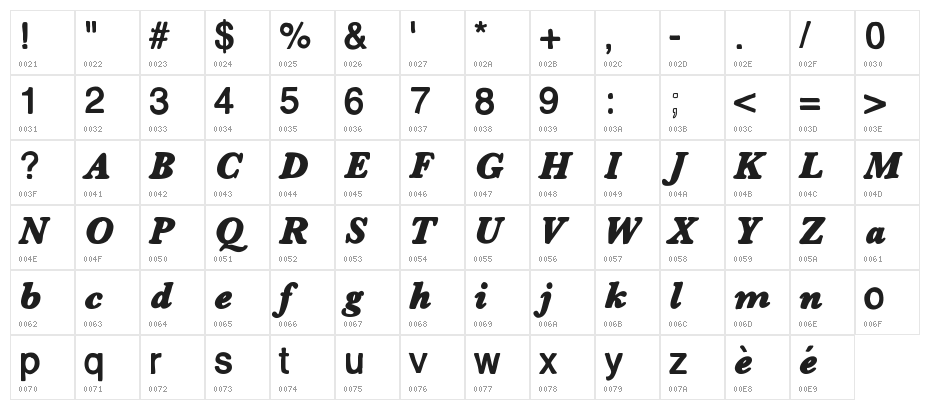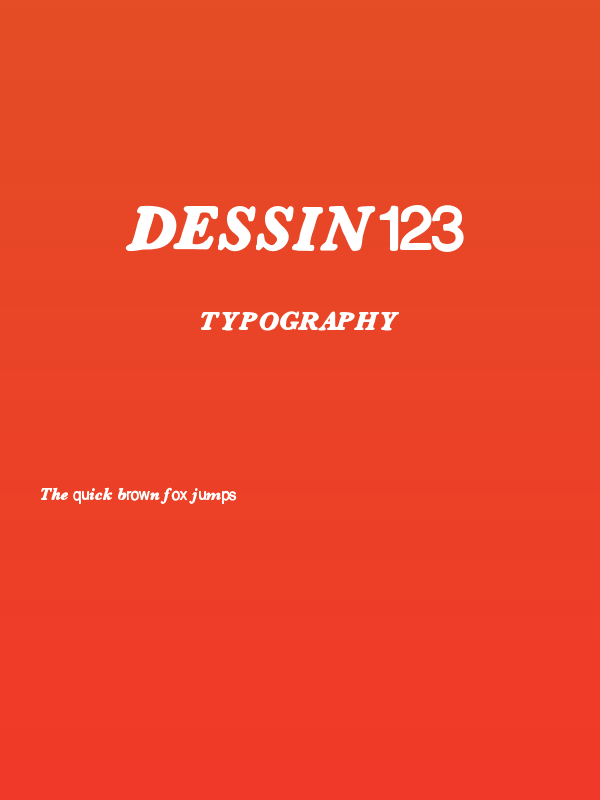
Dessin123 Font
Dessin123 Description
This font features a bold and dynamic style with a strong presence. The uppercase letters are slightly slanted, giving a sense of movement and energy. The lowercase letters maintain a consistent flow, with rounded edges that add a touch of softness to the overall design. The numerals are clear and bold, ensuring readability. Special characters are well-integrated, maintaining the font's cohesive look. This font's unique style makes it suitable for projects that require a bold statement.
| Proposed Projects | Ideal for branding, headlines, posters, and advertising materials that need a strong visual impact. |